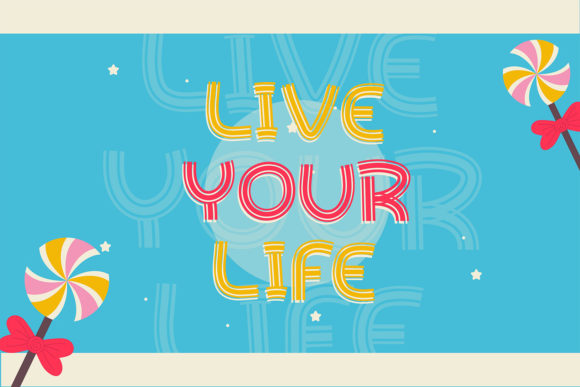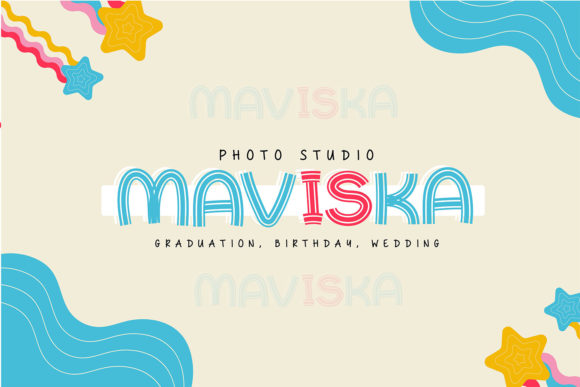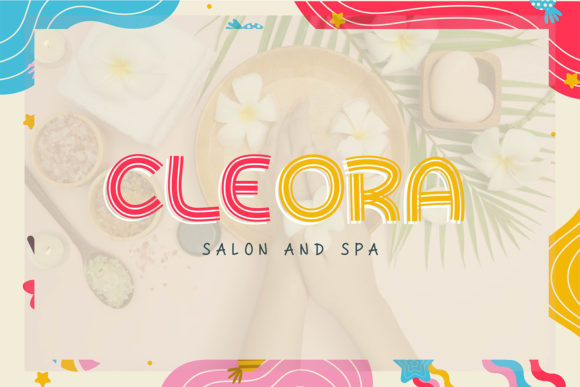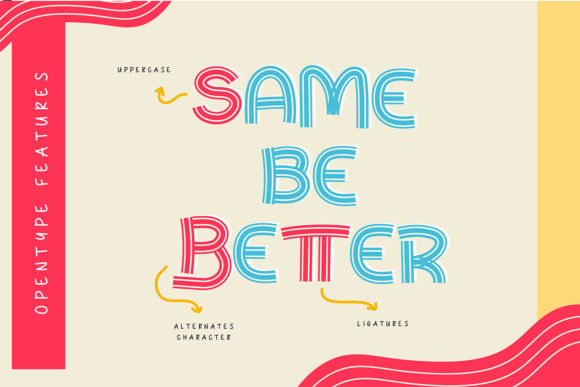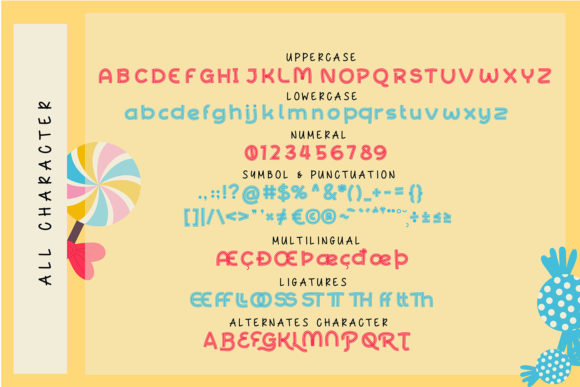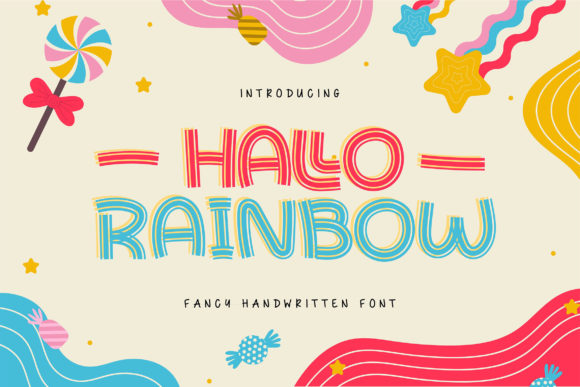
Hallo Rainbow Font: A Cute and Whimsical Display Font for Children-Themed Designs
Are you looking for a font that can add a touch of magic to your children-themed designs? Look no further than Hallo Rainbow Font! This adorable display font is perfect for crafters, designers, and anyone who loves to create playful and imaginative designs. In this article, we’ll take a closer look at Hallo Rainbow Font, its features, and how you can use it to create stunning designs.
What is Hallo Rainbow Font?
Hallo Rainbow is a cute and whimsical display font that is sure to capture the hearts of children and adults alike. This font is designed to be fun, playful, and perfect for children-themed designs. With its colorful and lively vibe, Hallo Rainbow Font is ideal for creating eye-catching designs that will stand out from the crowd.
Key Features of Hallo Rainbow Font
So, what makes Hallo Rainbow Font so special? Here are some of its key features:
- PUA Encoded: Hallo Rainbow Font is PUA (Private Use Area) encoded, which means you can access all of the glyphs and swashes with ease. This makes it easy to use the font in your designs and access all of the fun and playful characters.
- Cute and Whimsical: Hallo Rainbow Font is designed to be cute and whimsical, making it perfect for children-themed designs. The font features playful and imaginative characters that are sure to delight kids and adults alike.
- Display Font: Hallo Rainbow Font is a display font, which means it’s designed to be used at larger sizes. This makes it perfect for creating eye-catching headlines, titles, and other design elements.
How to Use Hallo Rainbow Font in Your Designs
Now that we’ve covered the features of Hallo Rainbow Font, let’s talk about how you can use it in your designs. Here are some ideas to get you started:
- Children’s Party Invitations: Use Hallo Rainbow Font to create fun and playful invitations for children’s parties. You can add bright colors and playful graphics to make the invitation even more special.
- Kids’ Book Covers: Hallo Rainbow Font is perfect for kids’ book covers. You can use the font to create eye-catching titles and add a playful touch to the cover design.
- Crafting Projects: Hallo Rainbow Font is also great for crafting projects, such as making cards, gift tags, and other DIY projects. You can use the font to add a personal touch to your creations.
Tips for Pairing Hallo Rainbow Font with Other Design Elements
To get the most out of Hallo Rainbow Font, you’ll want to pair it with other design elements that complement its playful and whimsical vibe. Here are some tips:
- Bright Colors: Hallo Rainbow Font looks best when paired with bright and bold colors. Try using colors like pink, blue, yellow, and green to create a fun and playful design.
- Playful Graphics: Add playful graphics, such as illustrations of children, animals, or objects, to create a fun and imaginative design.
- Simple Backgrounds: Keep the background simple and clean to let Hallo Rainbow Font be the star of the show. A simple white or colored background will help the font stand out.
In conclusion, Hallo Rainbow Font is a cute and whimsical display font that is perfect for children-themed designs. With its PUA encoding, cute and playful characters, and display font style, Hallo Rainbow Font is sure to add a touch of magic to your designs. Whether you’re a crafter, designer, or just someone who loves to create playful designs, Hallo Rainbow Font is a great choice. So why not give it a try and see what amazing designs you can create?